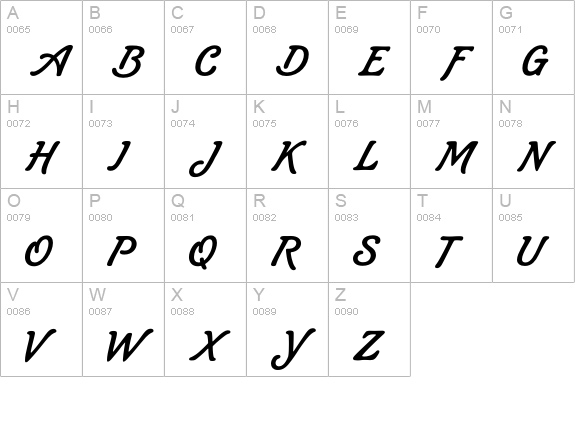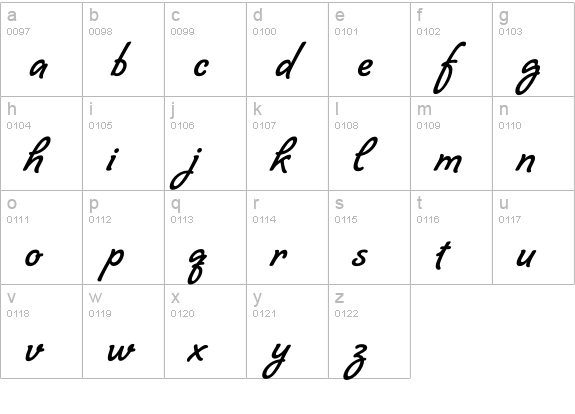
Lombriz Font Details
Lombriz font is a versatile and modern typeface that combines sleek lines with a touch of elegance. Its clean and legible design makes it perfect for a wide range of projects, from branding to editorial design. The Lombriz font is not only visually appealing but also highly functional, making it a great choice for both digital and print applications. Best of all, the Lombriz font is completely free to use and download. You can easily access this beautiful typeface at FontsMarket.com, where you can explore its various weights and styles. Whether you're a designer looking to add a fresh touch to your projects or a creative professional in need of a reliable font, Lombriz is sure to impress with its modern aesthetic and versatility. Download it today and elevate your designs with this stunning typeface.